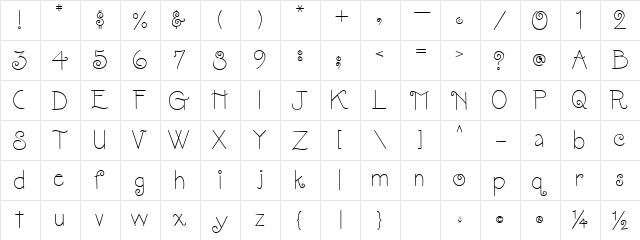
PC Botanical Straight
Design Context for PC Botanical Typeface
PC Botanical offers clean, dependable letterforms without strong stylistic allegiance, making it a practical choice for designers who need flexibility.